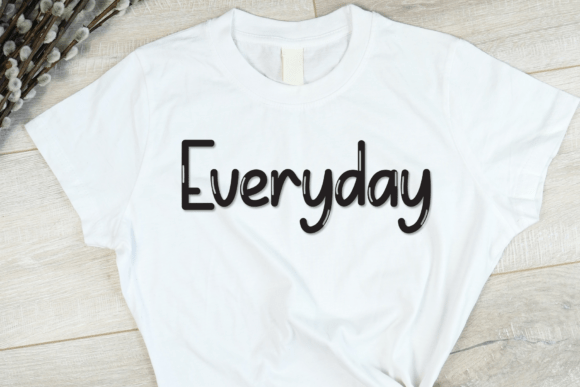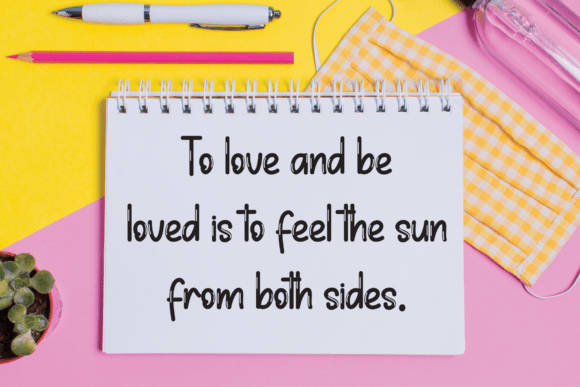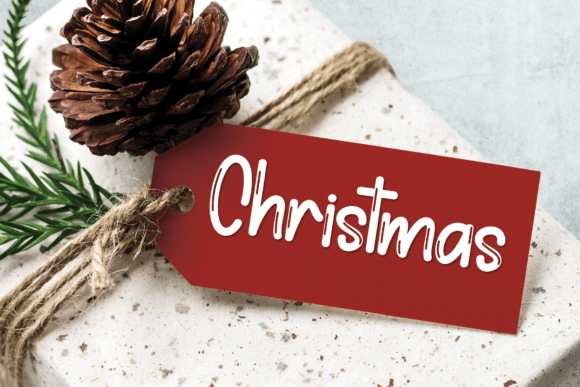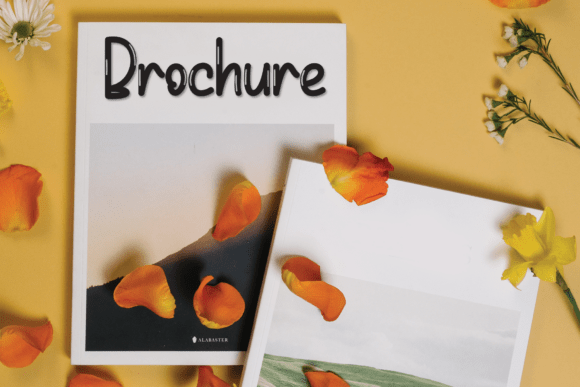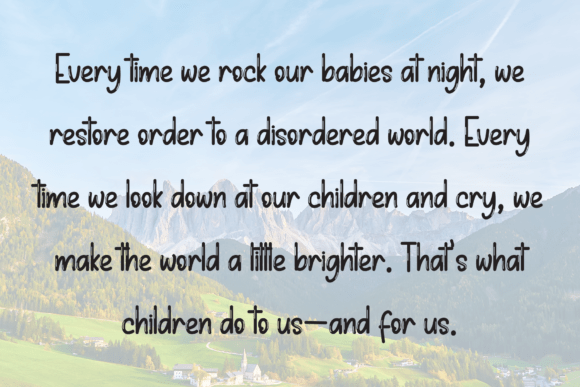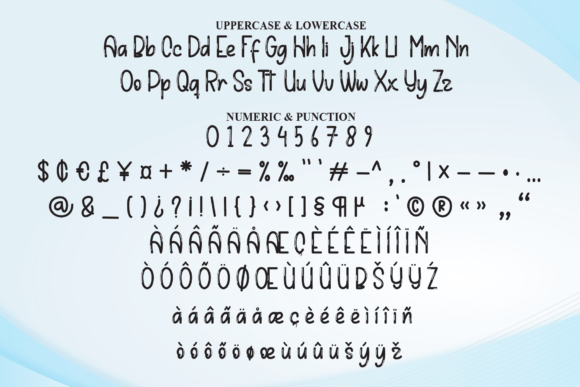
Delightful Font: Adding a Touch of Whimsy to Your Designs
Are you tired of using the same old fonts in your designs? Do you want to add a touch of personality and whimsy to your projects? Look no further than the Delightful Font, a charming handwritten display font that’s sure to bring a smile to your face. With its sweet and friendly strokes, this playful typeface is perfect for crafting wedding invitations, greeting cards, and any other design project that needs a dash of fun and lighthearted joy.
Handwritten fonts have a way of adding a personal touch to any design project. They evoke a sense of warmth and friendliness, making them perfect for projects that require a more approachable and inviting tone. The Delightful Font takes this to the next level with its unique blend of sweet and friendly strokes. Each letter is carefully crafted to create a sense of movement and fluidity, giving your designs a sense of energy and playfulness.
Wedding invitations and greeting cards are special occasions that call for a font that’s both elegant and playful. The Delightful Font is perfect for these types of projects, as it strikes the perfect balance between sophistication and whimsy. Imagine sending out wedding invitations that set the tone for a fun and lighthearted celebration, or greeting cards that make the recipient feel special and appreciated. With the Delightful Font, you can create designs that are both memorable and impactful.
Beyond Wedding Invitations and Greeting Cards
While the Delightful Font is perfect for wedding invitations and greeting cards, its uses don’t have to stop there. This versatile font can be used in a wide range of design projects, from branding and packaging to social media graphics and blog posts. Whether you’re a designer, crafty DIY enthusiast, or small business owner, the Delightful Font is a great addition to your font library.
What Makes the Delightful Font So Special?
So what makes the Delightful Font so special? Here are just a few features that set it apart from other fonts:
- Unique blend of sweet and friendly strokes: The Delightful Font has a one-of-a-kind look that’s both sweet and friendly. Its unique blend of strokes creates a sense of movement and energy, making it perfect for designs that need a playful touch.
- Handcrafted style: Each letter in the Delightful Font is carefully handcrafted to create a sense of personality and whimsy. This font is not just a collection of letters – it’s a work of art.
- Perfect for designs that need a fun vibe: If you’re looking for a font that can add a dash of fun and lighthearted joy to your designs, the Delightful Font is the perfect choice.
Tips for Using the Delightful Font
Here are a few tips for using the Delightful Font in your designs:
- Use it sparingly: While the Delightful Font is perfect for adding a touch of whimsy to your designs, it’s best used sparingly. Try using it for headings or titles, and a more traditional font for body text.
- Experiment with colors: The Delightful Font looks great in a wide range of colors, from bright and bold to soft and pastel. Experiment with different colors to find the perfect look for your design.
- Pair it with other fonts: The Delightful Font pairs well with a wide range of other fonts, from traditional serif fonts to modern sans-serif fonts. Try experimenting with different font combinations to find the perfect look for your design.
The Delightful Font is a charming handwritten display font that’s perfect for adding a touch of whimsy to your designs. With its unique blend of sweet and friendly strokes, this playful typeface is sure to bring a smile to your face. Whether you’re a designer, crafty DIY enthusiast, or small business owner, the Delightful Font is a great addition to your font library. So why settle for boring, generic fonts when you can add a touch of personality and whimsy to your designs with the Delightful Font?